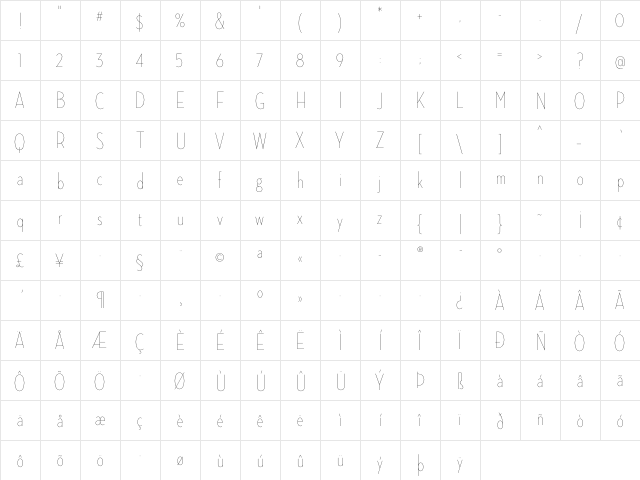
Neutraface Condensed Thin
| Designer | Christian Schwartz |
Design Context for Neutraface Condensed Typeface
Neutraface Condensed offers clean, dependable letterforms without strong stylistic allegiance, making it a practical choice for designers who need flexibility. Its slender proportions lend an understated elegance to any composition. The condensed width makes it efficient for tight spaces without sacrificing legibility.